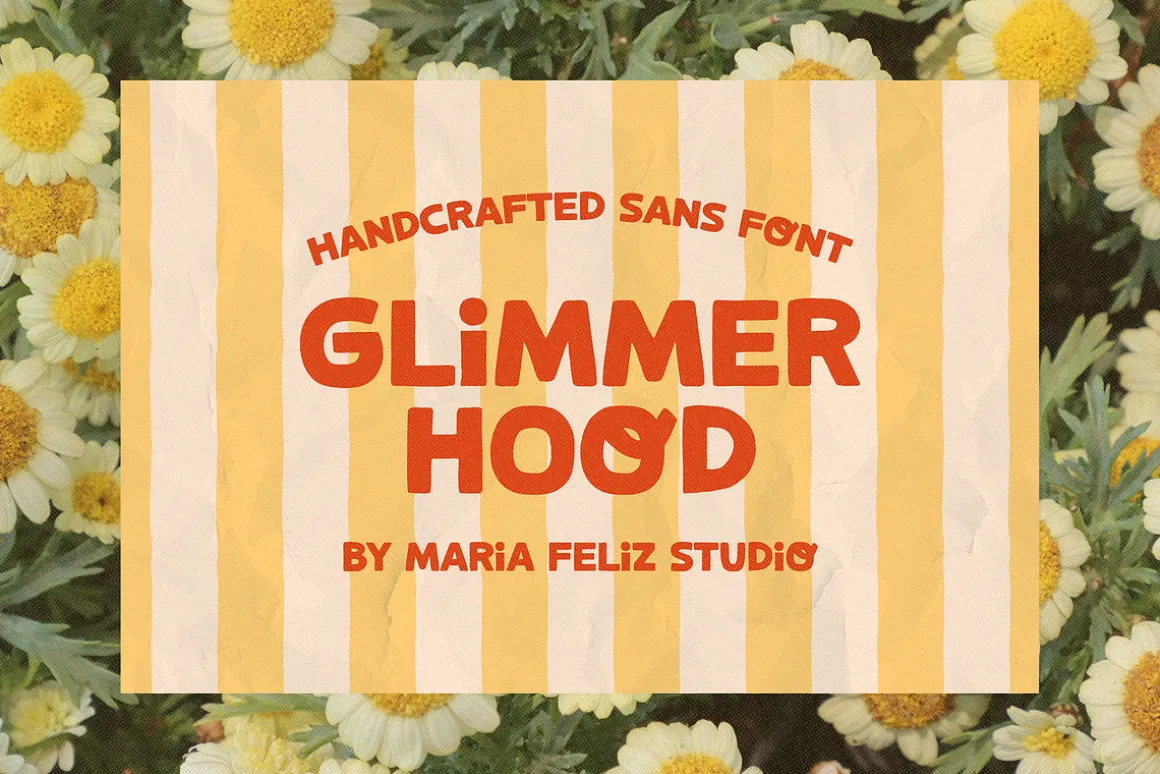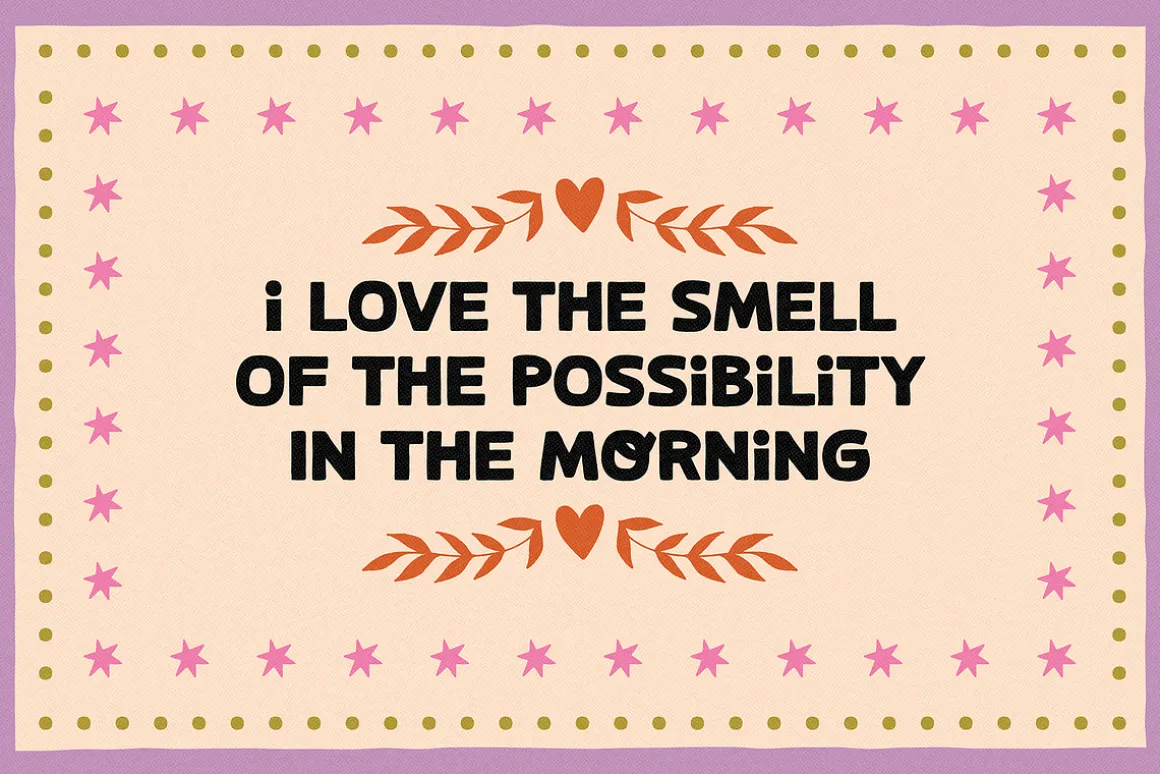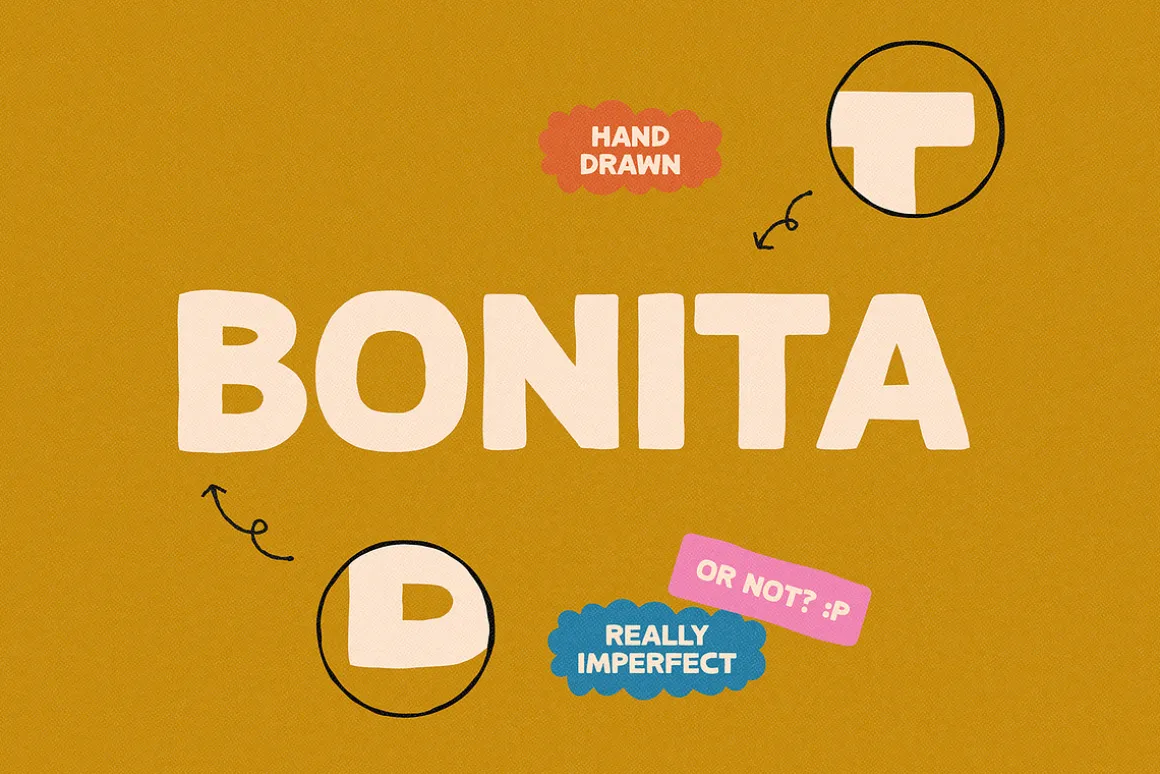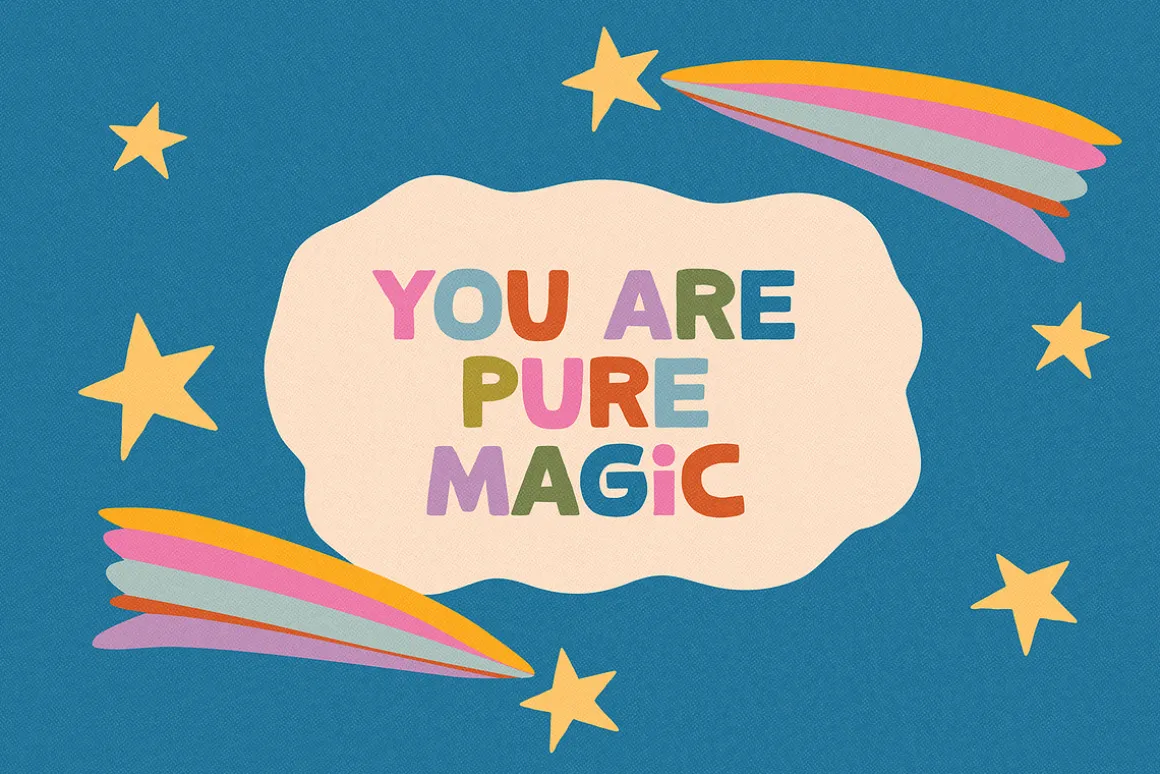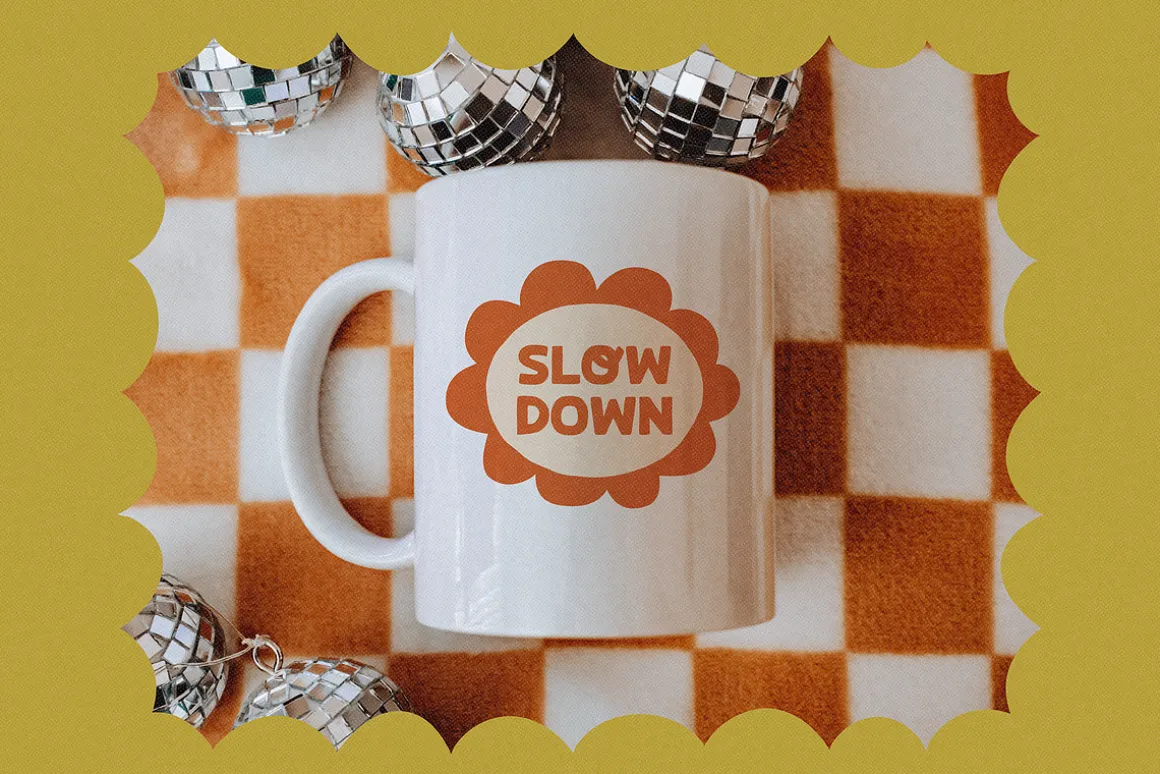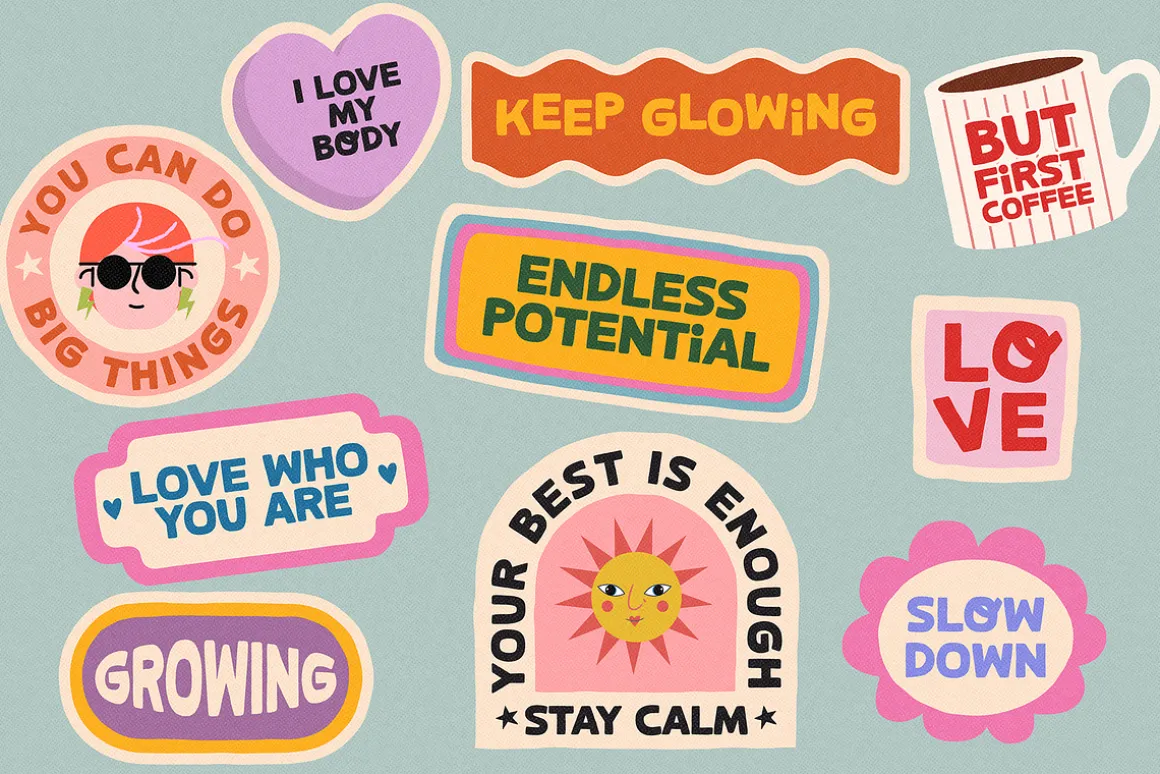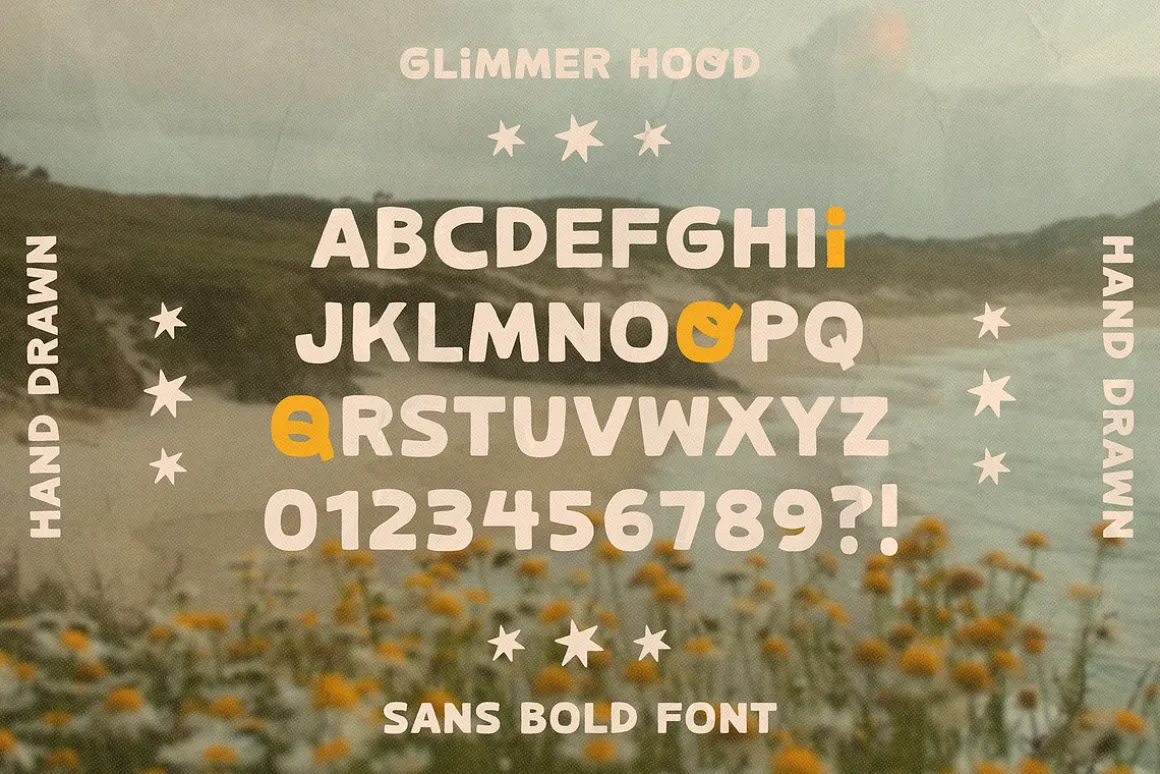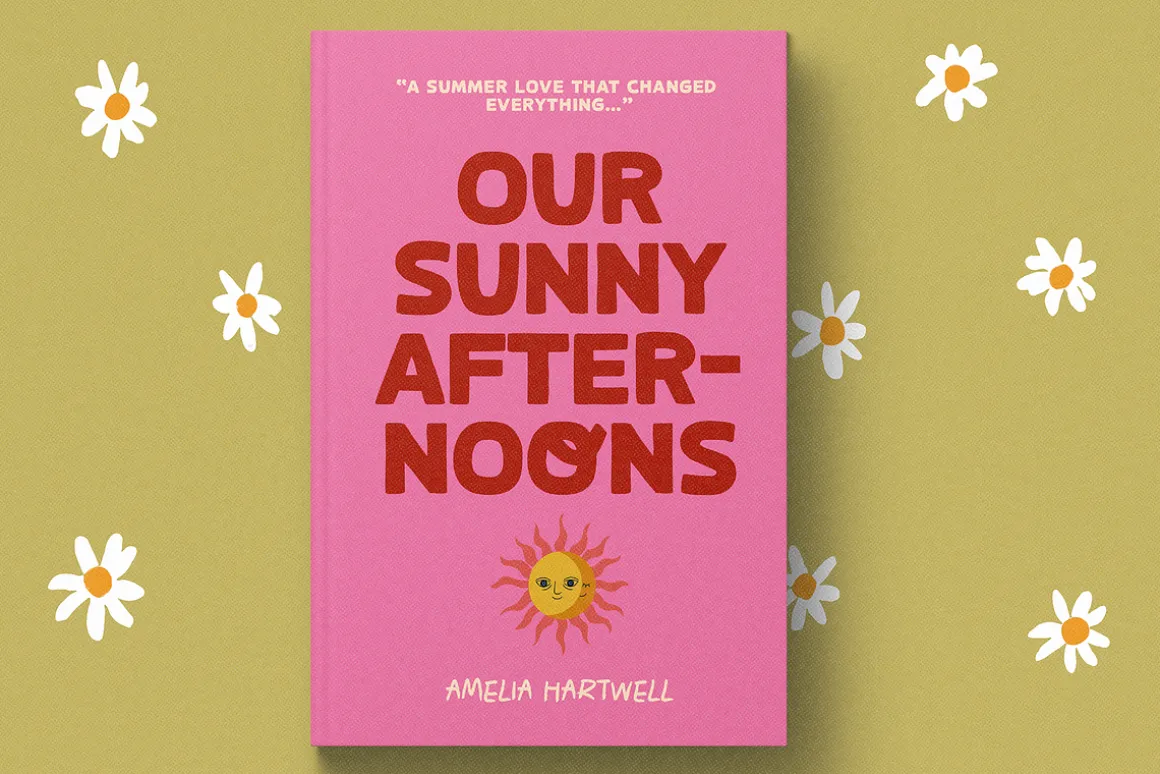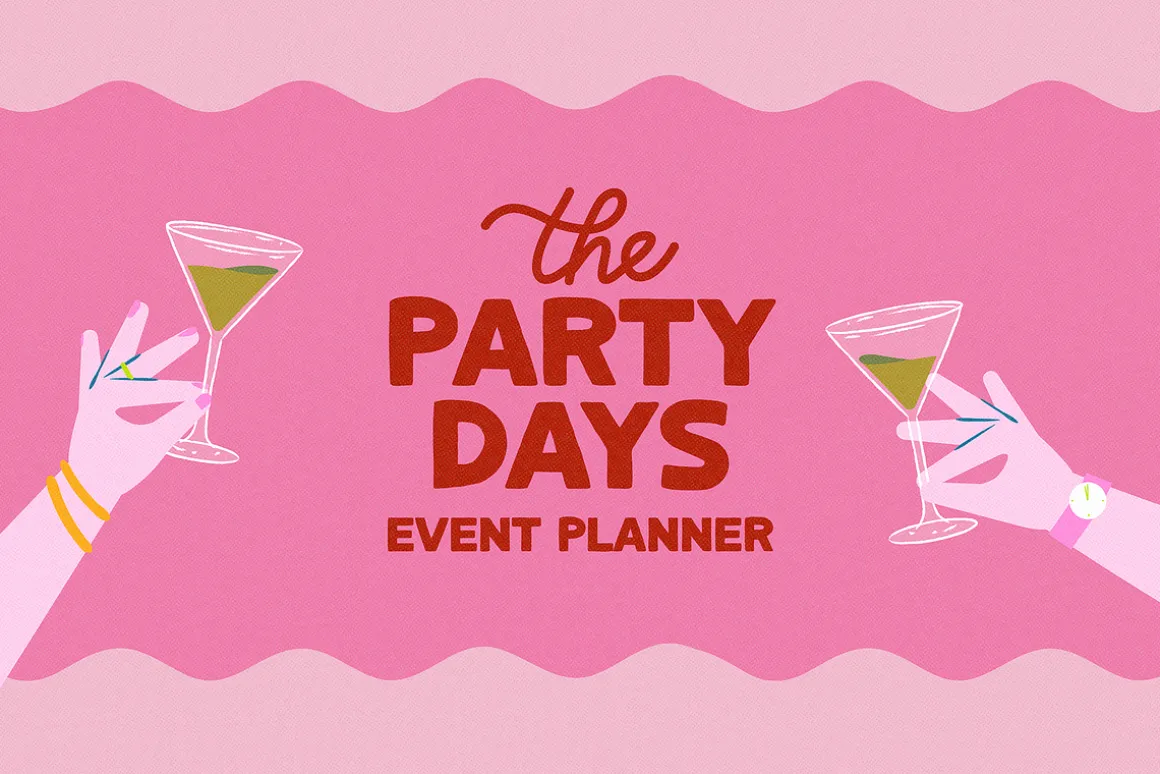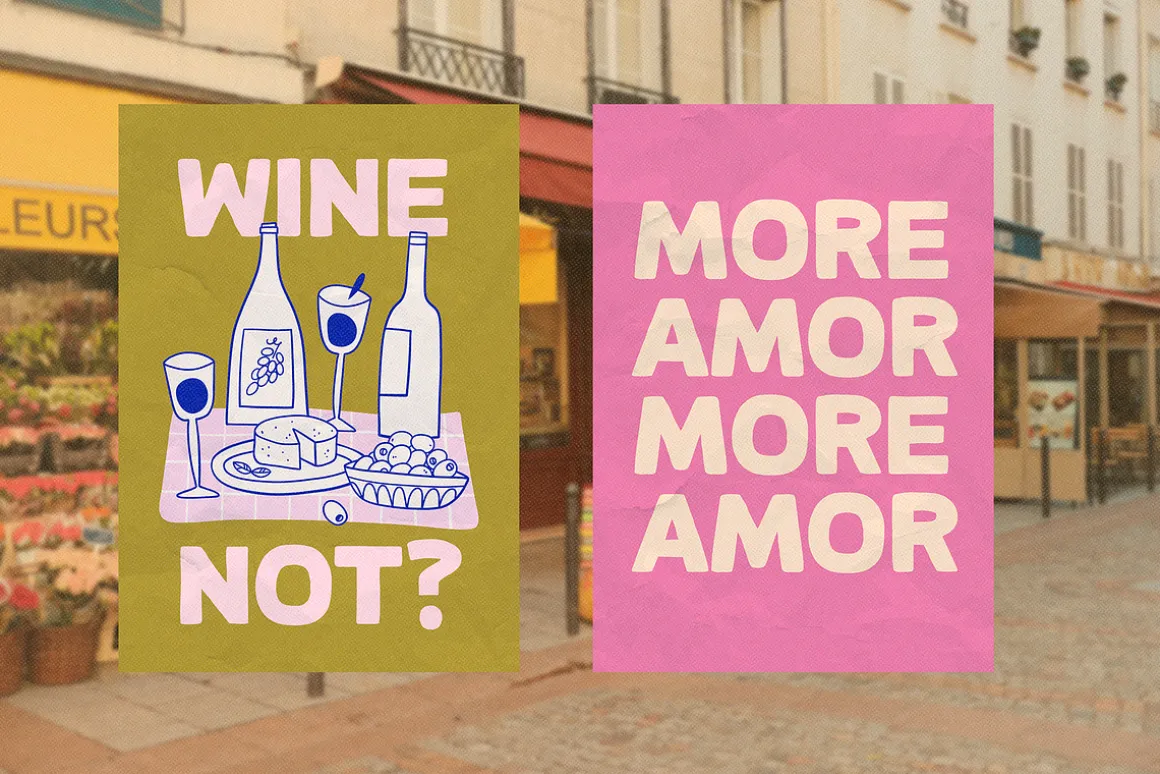
GLIMMER HOOD is a quirky and dynamic hand-drawn sans font with a BOLD yet informal style. Carefully crafted to add an organic, slightly irregular touch, it’s perfect for creating eye-catching quotes, stickers, merch, social media posts, and more.
Unique lowercase details like the playful ‘o,’ ‘i,’ and ‘q’ add a fun twist, while its hand-drawn charm brings a casual, creative vibe to any project.
✷ Use the 3 symbols included to make cute/cool compositions.
- Left curly bracket { – Star 1
- Right curly bracket } – Star 2
- Logical not – Mini Heart
Add a dash of playful imperfection to your designs with Glimmer Hood because not everything has to be perfect to be fabulous!✷